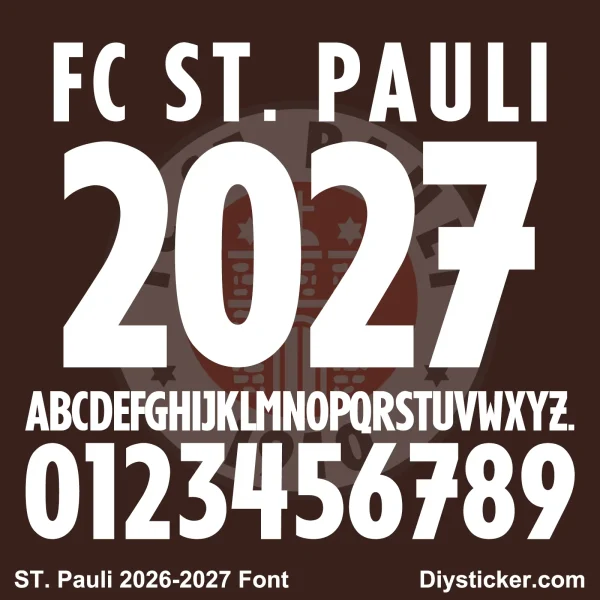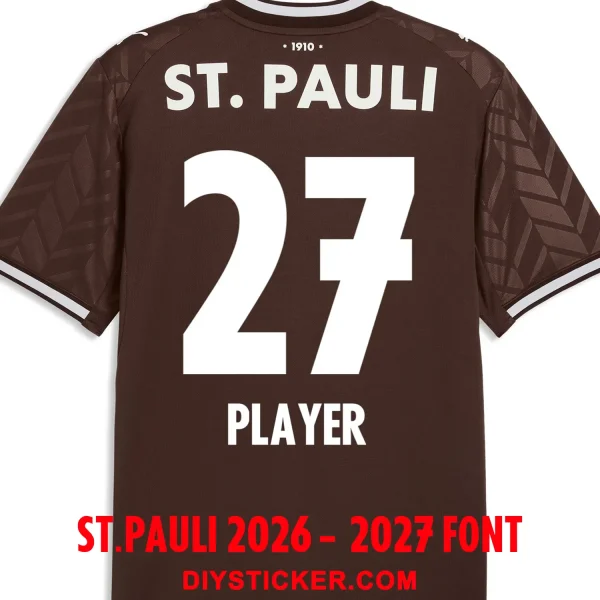
FC St. Pauli 2026-2027 Font & Numbers Vector Kit: The Ultimate Bundesliga Printing Asset
Bring authentic German football styling into your apparel production line with our high-grade FC St. Pauli 2026-2027 font and numeric vector pack. This digital kit mirrors the precise typography design utilized on the pitch by the Kiezkicker for their domestic campaigns. Whether you are fulfilling a high-volume team apparel order or creating single custom name-sets for fans, these files guarantee factory-accurate lines. Expand your typography workspace by browsing our complete selection in the Club fonts section.
Design Language & Typographic Geometry
The FC St. Pauli 2026-2027 font features a distinct, high-impact athletic style that matches the club’s raw visual identity. Key design highlights include:
Compressed Tall San-Serif Geometry: The letters and numbers utilize a narrow, vertically elongated structure that maximizes space on the back of the jersey while remaining highly legible from a distance.
Solid Monolithic Fills: Designed with flat, block-solid fills without extra inner lines, establishing an ultra-clean profile that pairs perfectly with both classic and modern kit textures.
Asymmetrical Structural Cuts: Distinctive horizontal crossbars and angled terminal endings provide a modern, edgy, and customized look that sets this kit apart from standard varsity typography.